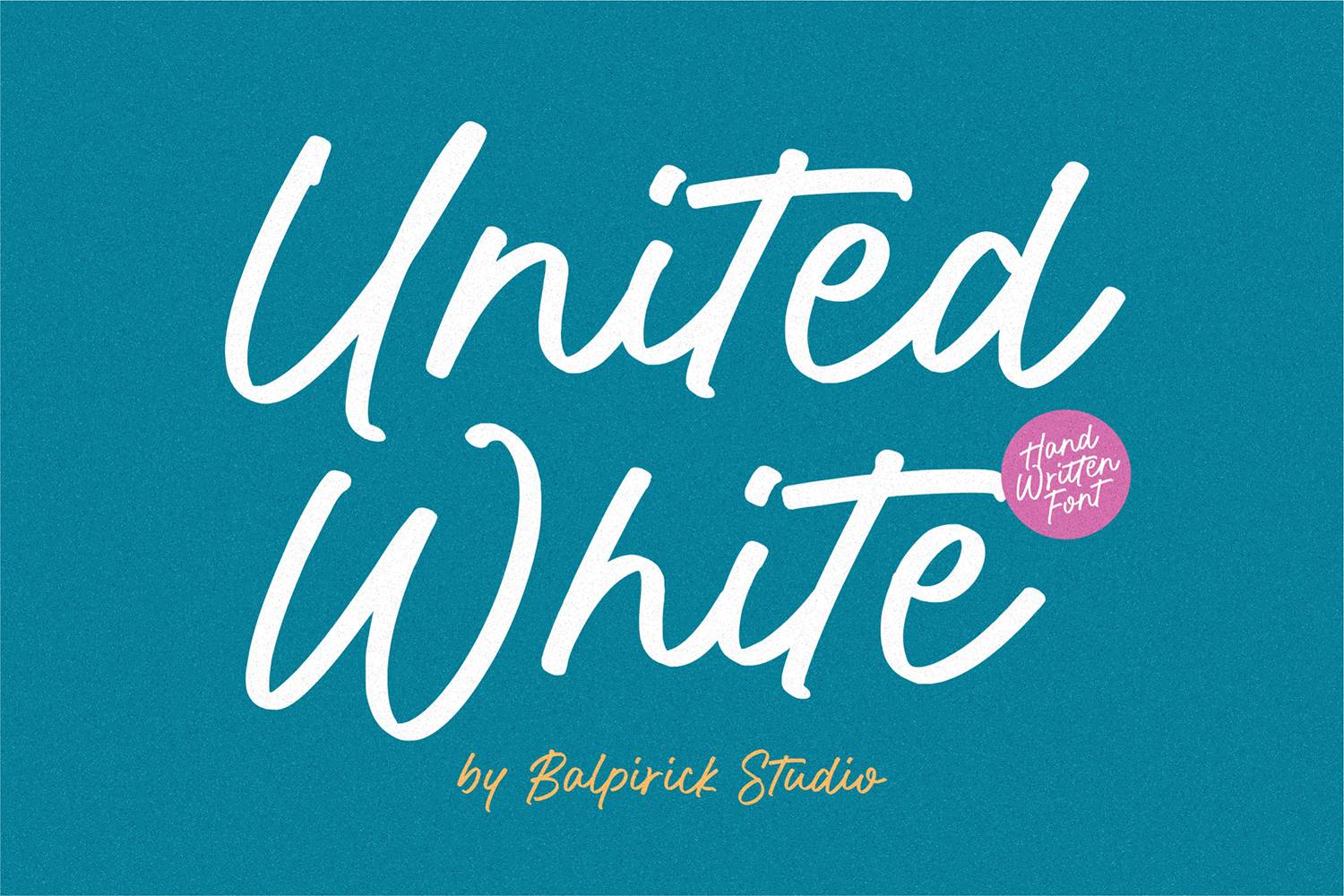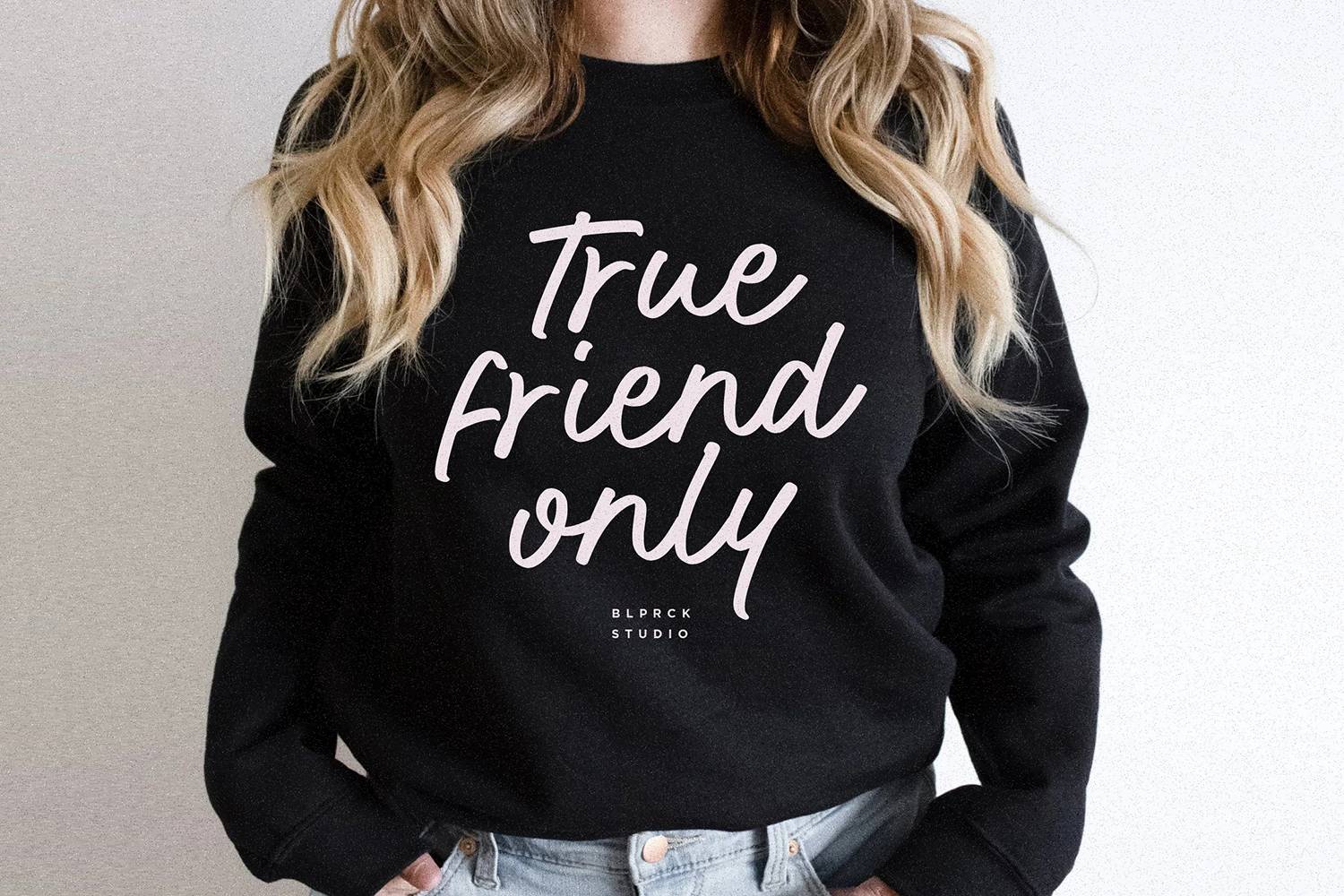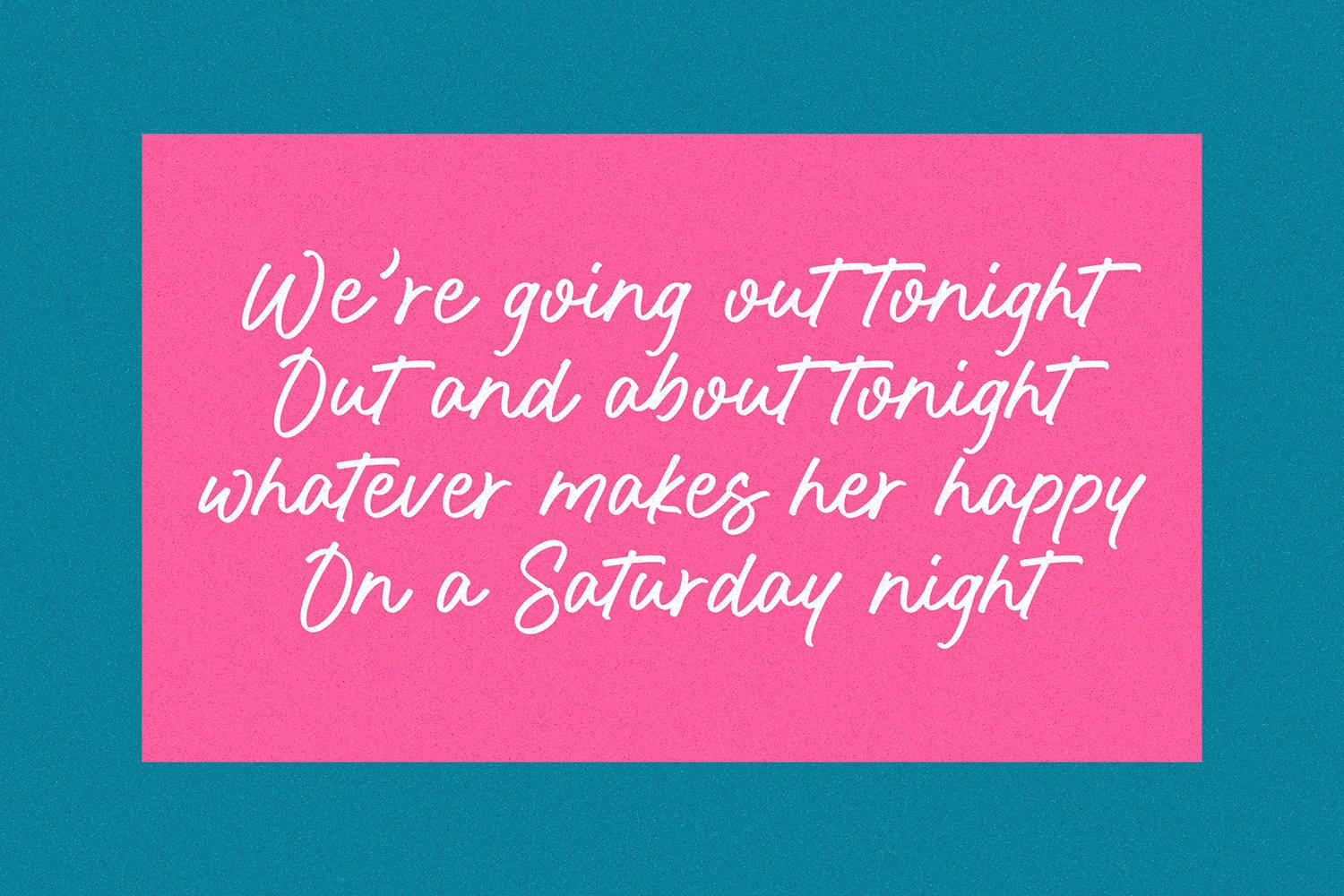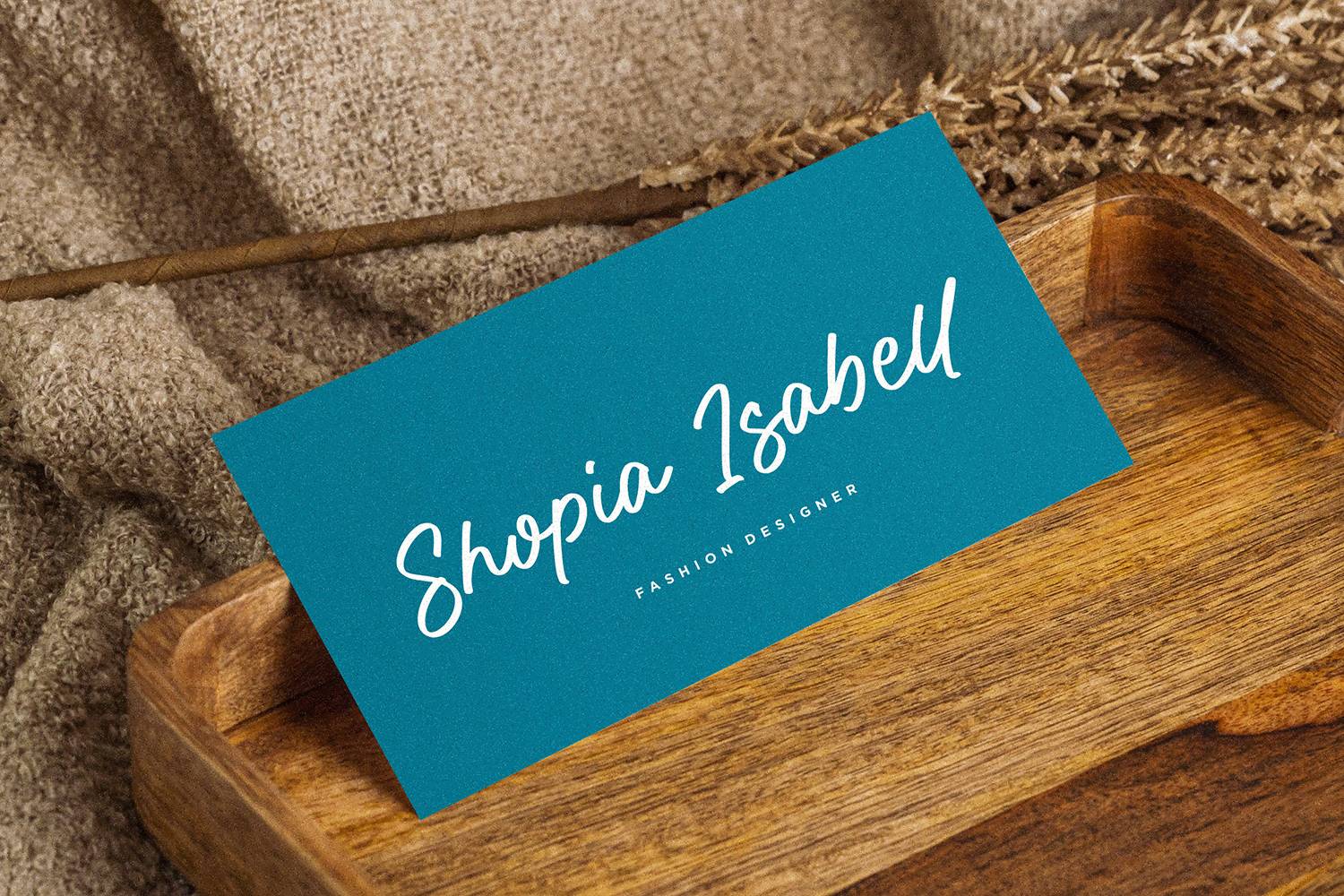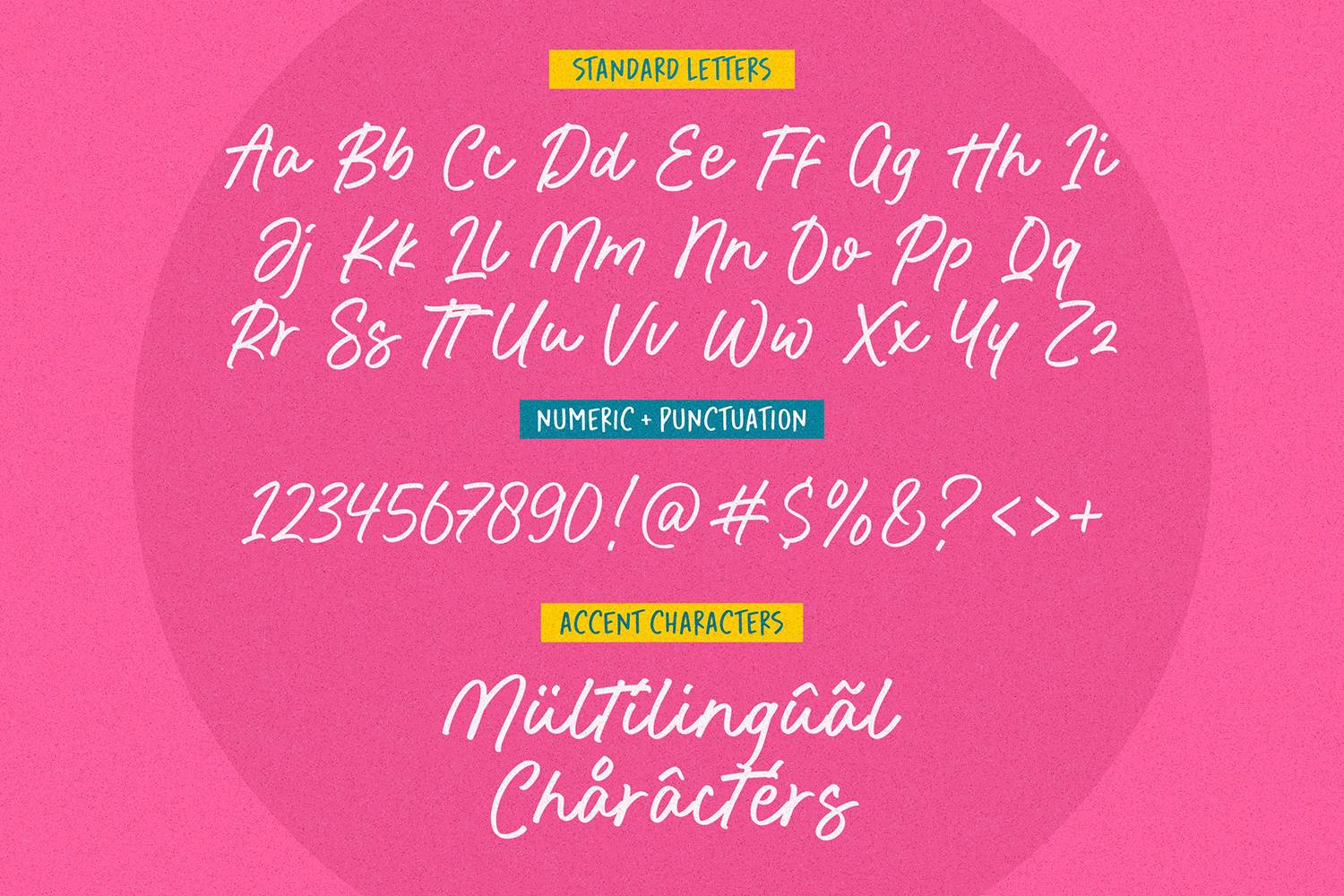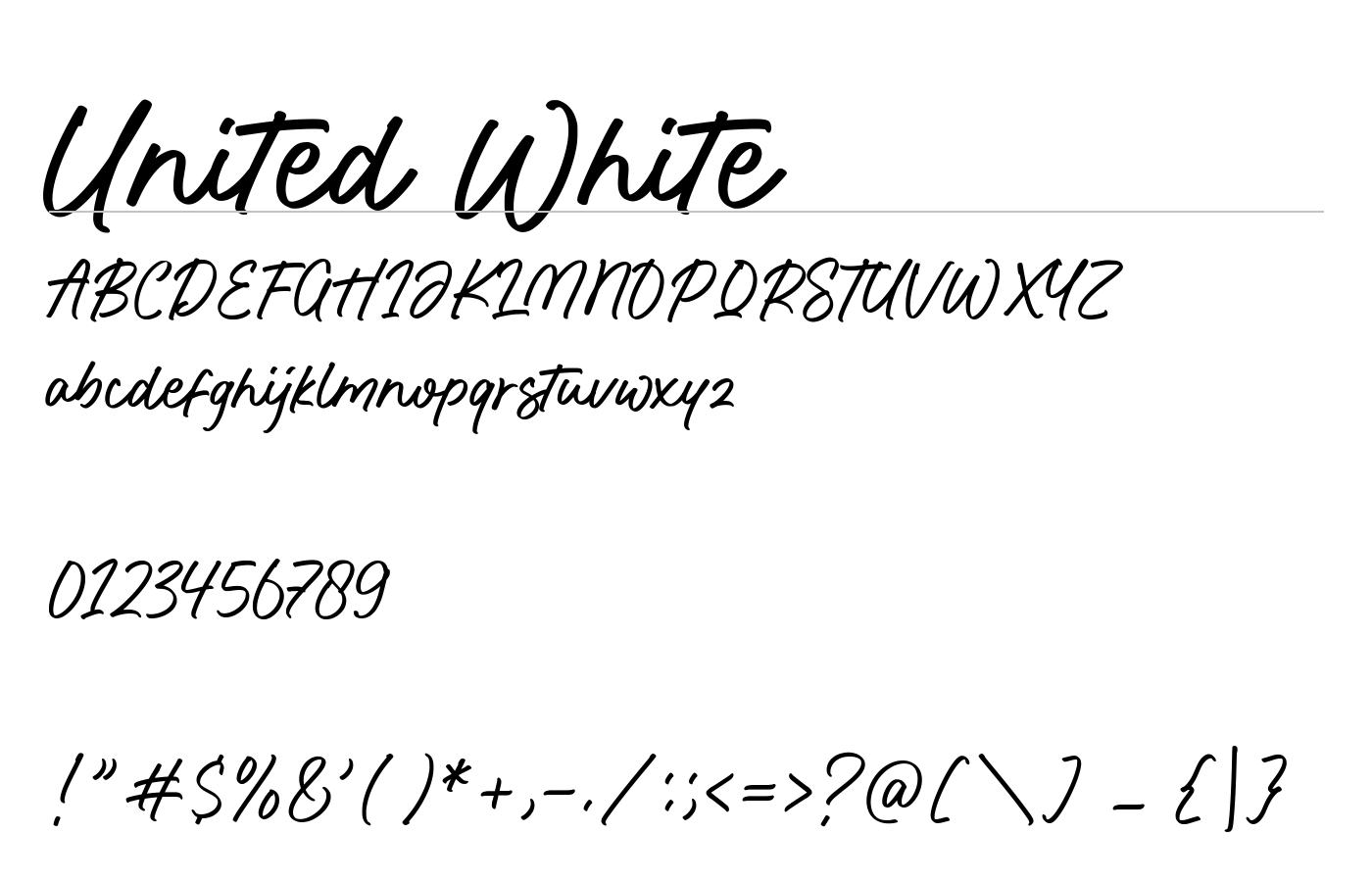
United White is a lively and elegant script font with a smooth, handwritten style that feels personal and approachable. Its fluid strokes and thin, slightly varied line weight give it a natural and casual charm, making it ideal for creative branding, invitations, and modern editorial projects where a friendly, yet refined touch is desired. This font works beautifully in designs that want to convey warmth and personality without sacrificing sophistication.
United White Font
About United White Font